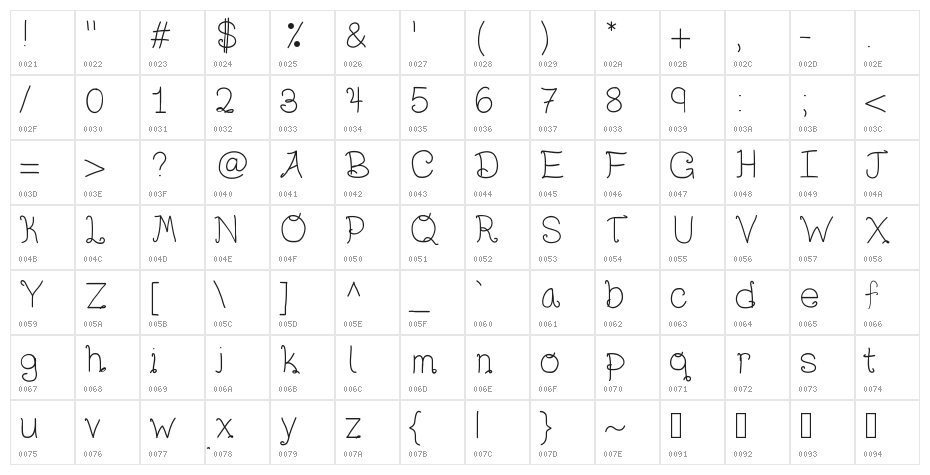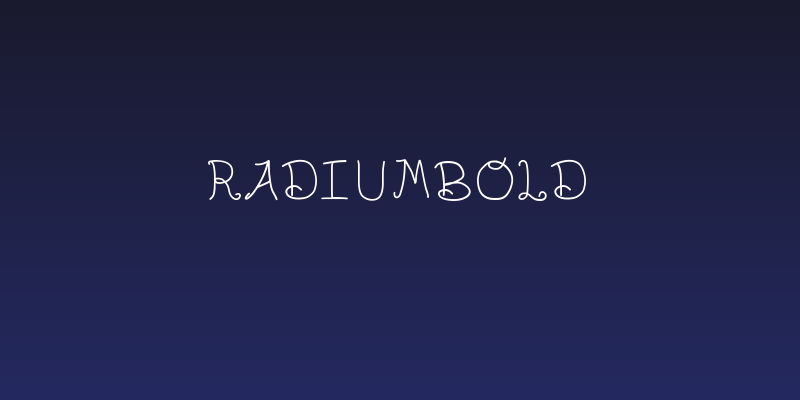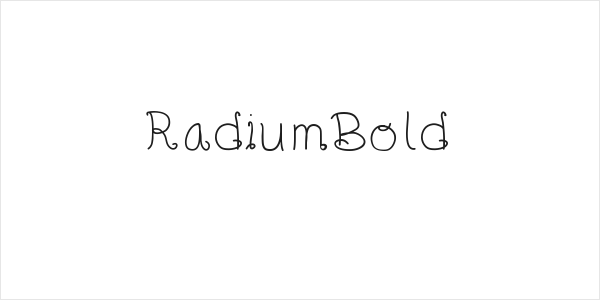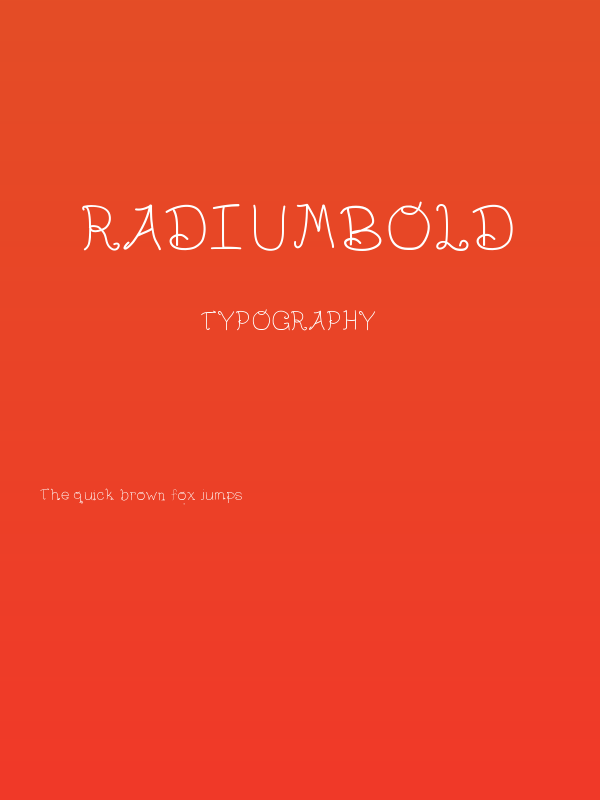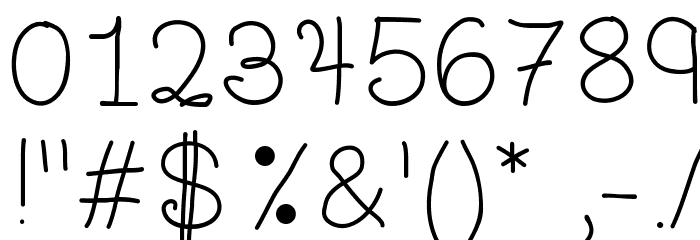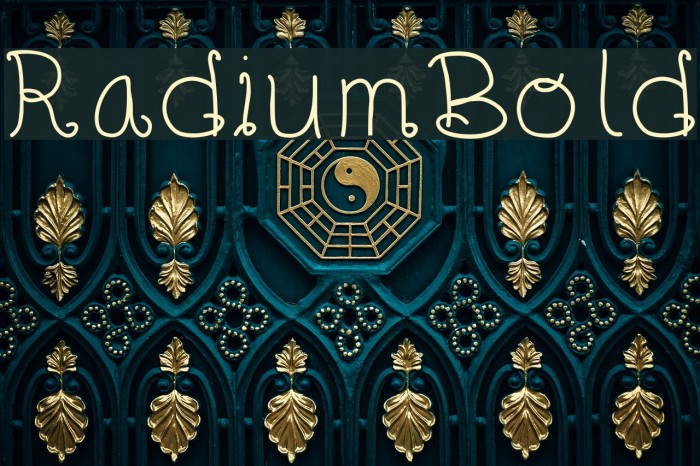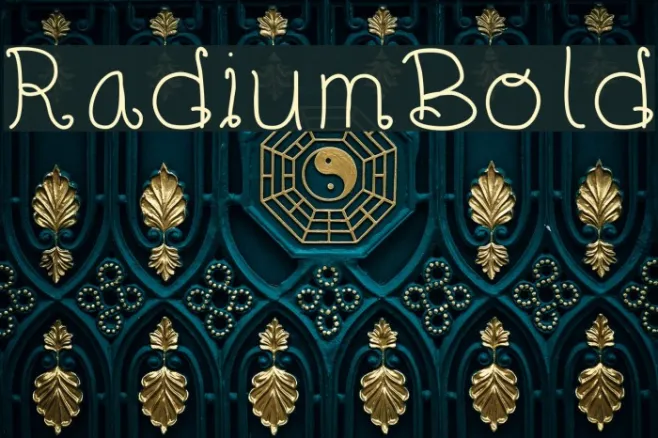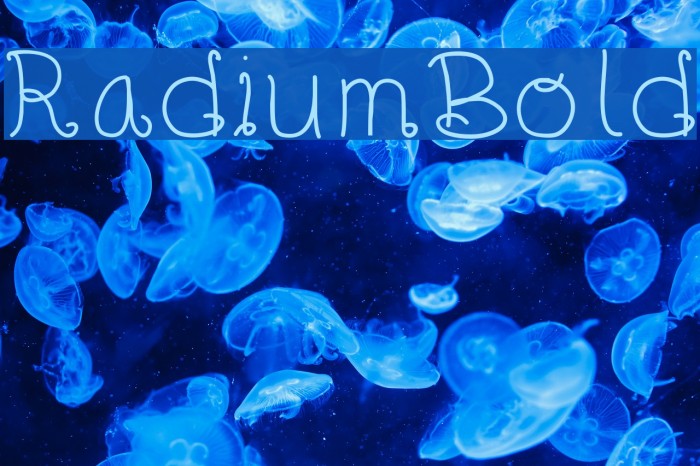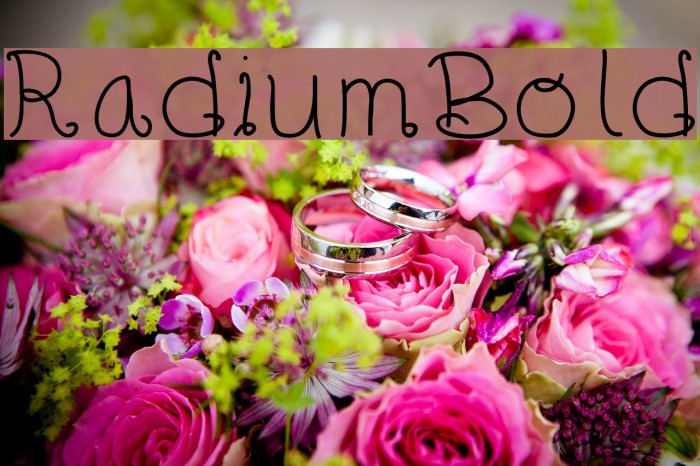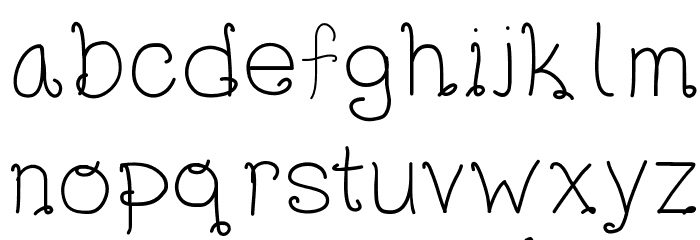
RadiumBold Font
RadiumBold Description
This font features a playful and whimsical design, characterized by its curly and looping strokes. The uppercase letters exhibit a unique flair with extended serifs and decorative elements, while the lowercase letters maintain a consistent style with rounded forms and subtle embellishments. The numerals are distinct and easy to read, incorporating the same playful curves seen in the alphabet. Special characters are creatively designed, adding to the font's overall charm. This font's style is both approachable and artistic, making it suitable for a variety of creative applications.